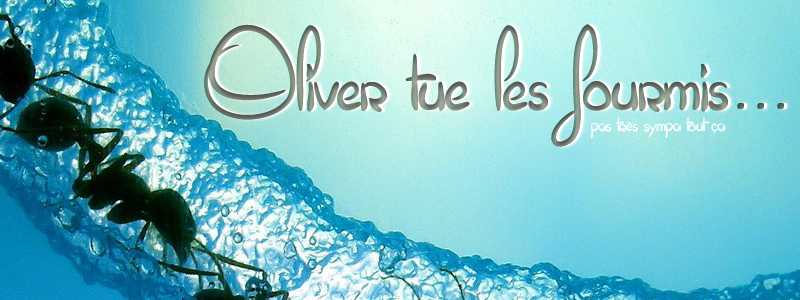
Oliver tue les Fourmis is a captivating handwritten font that exudes a sense of whimsical elegance. Designed by M.K.V, this font boasts a delightful fusion of flowing curves and sharp, angular strokes, creating a visually striking and dynamic aesthetic.
The font's distinctive letterforms evoke a sense of playfulness and individuality, making it an excellent choice for a variety of design applications, from editorial layouts and branding to stationery and packaging. With its unique character and versatility, Oliver tue les Fourmis is sure to add a touch of charm and personality to any project.